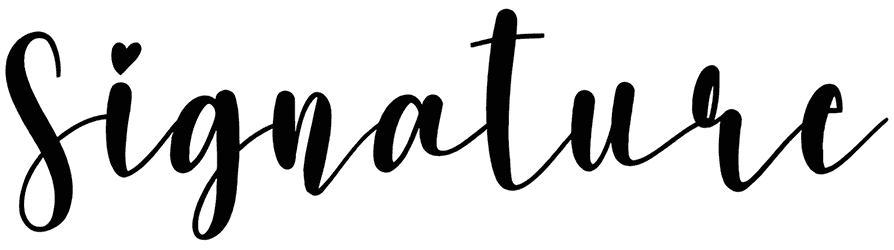
Signature Font
Are you working on a romantic design and want to give it a classic and adorable look? This calligraphy font, with its smooth and curvy for,m can be a nice choice to make it happen. With an almost full cover of characters, Signature font can be used for any short or long text, such as postcards, invitations, packaging, or the like, and create a memorable mood.